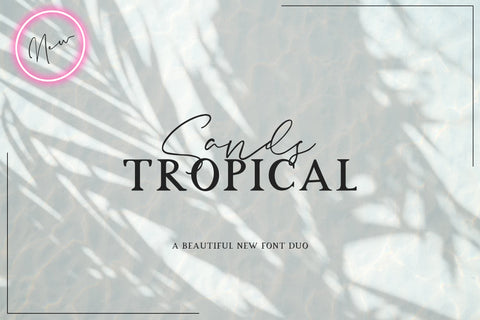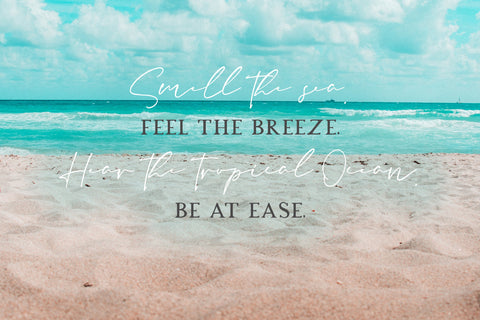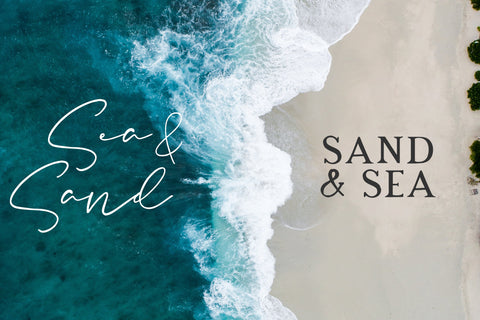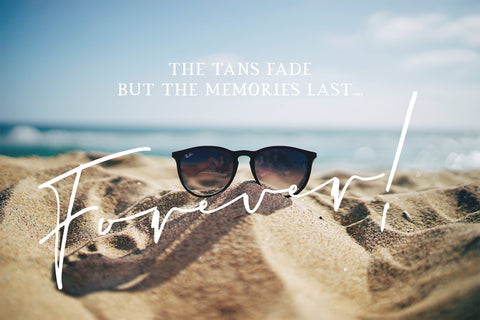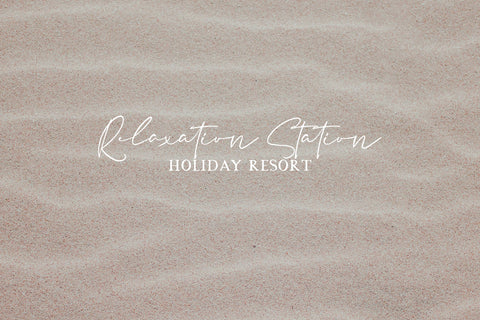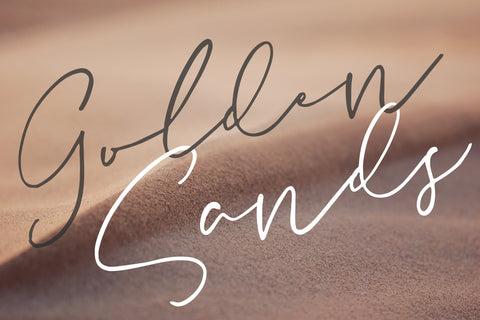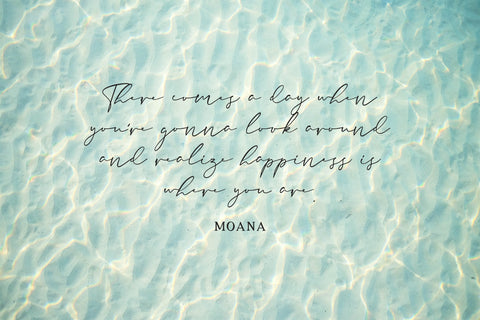
Sands Tropical Font Duo (Craft Fonts, Handwritten Fonts, Font Duos, Wedding Fonts)
Grab this stunning font duo now! A swirly, curly script and a strong serif that make a perfect pair!